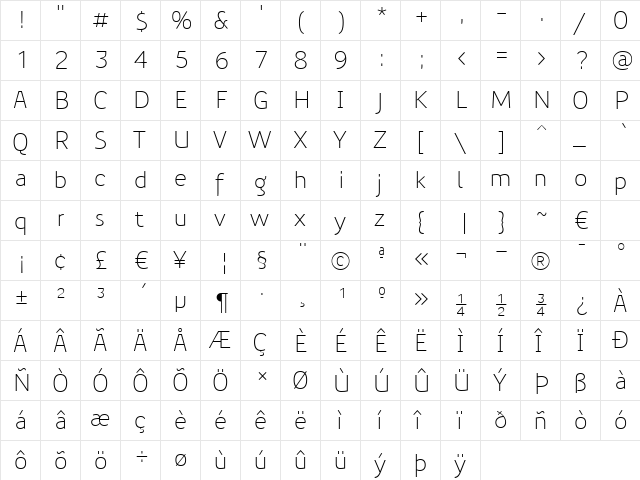
PreciousSansLight Regular
Design Context for PreciousSansLight Typeface
PreciousSansLight offers clean, dependable letterforms without strong stylistic allegiance, making it a practical choice for designers who need flexibility. Its slender proportions lend an understated elegance to any composition.
Pro Tip: Pair PreciousSansLight with a font of contrasting weight or personality to build a more expressive typographic hierarchy.